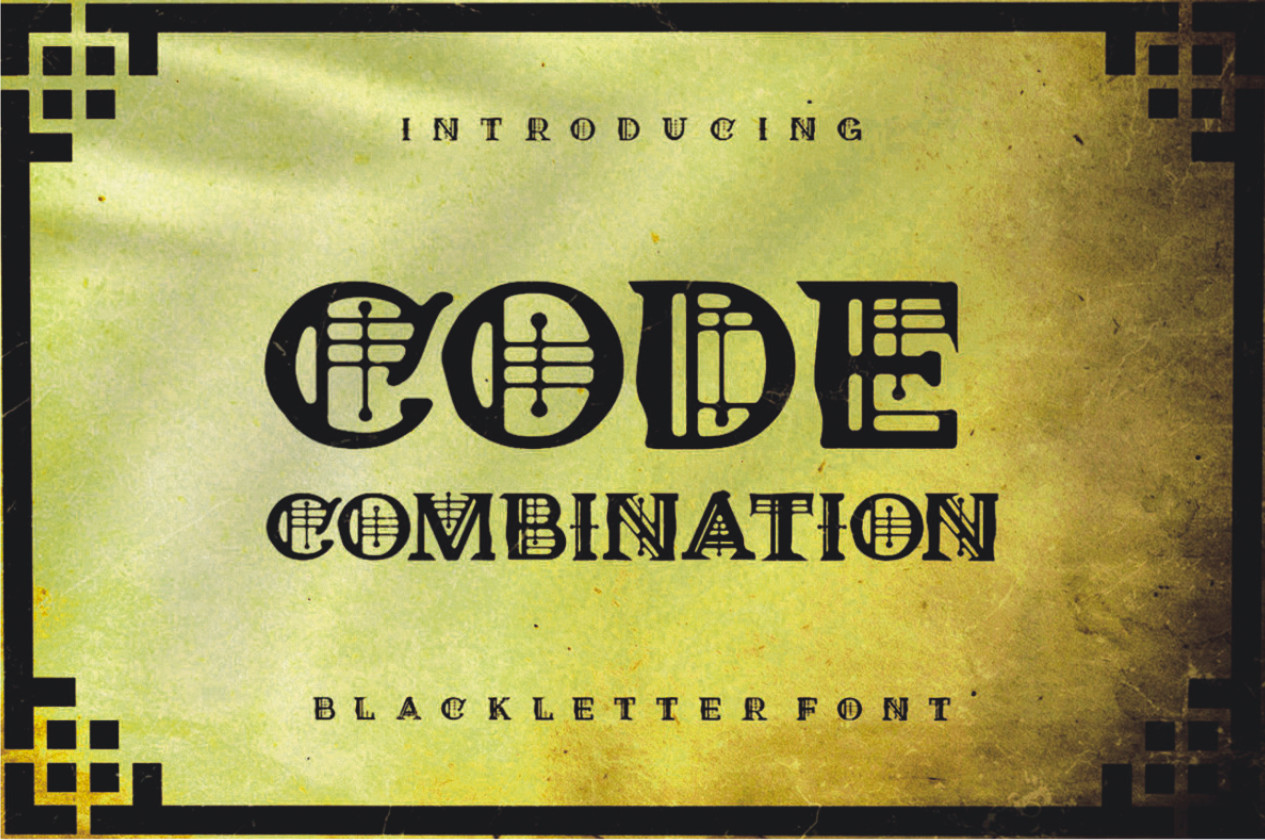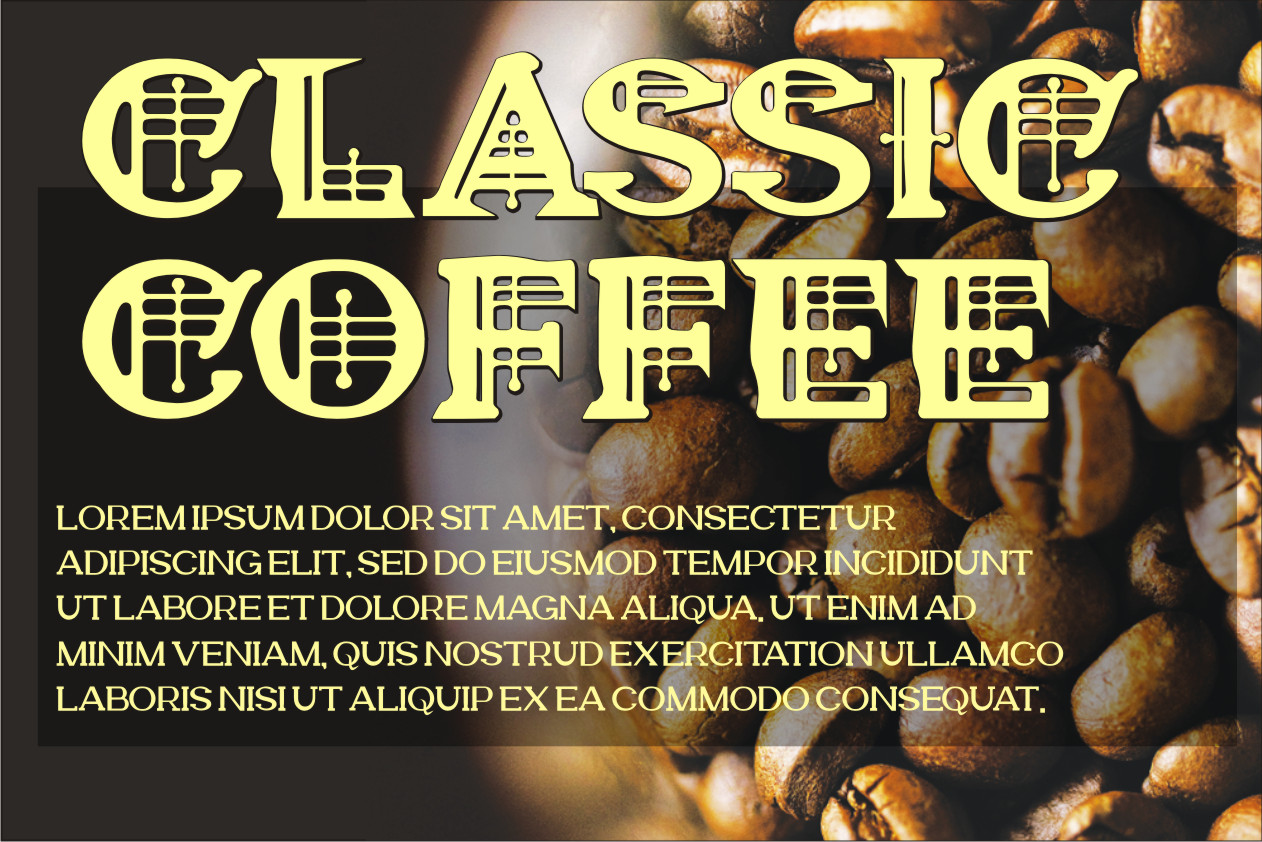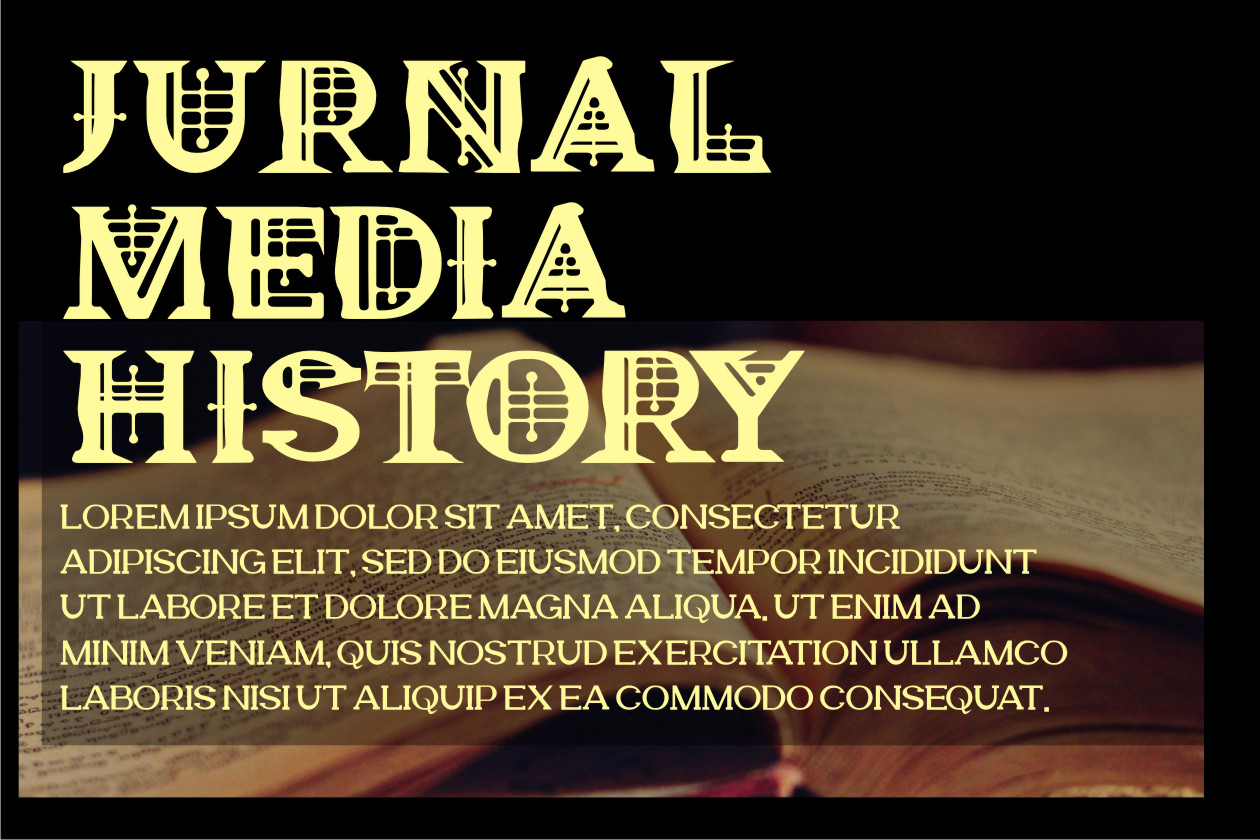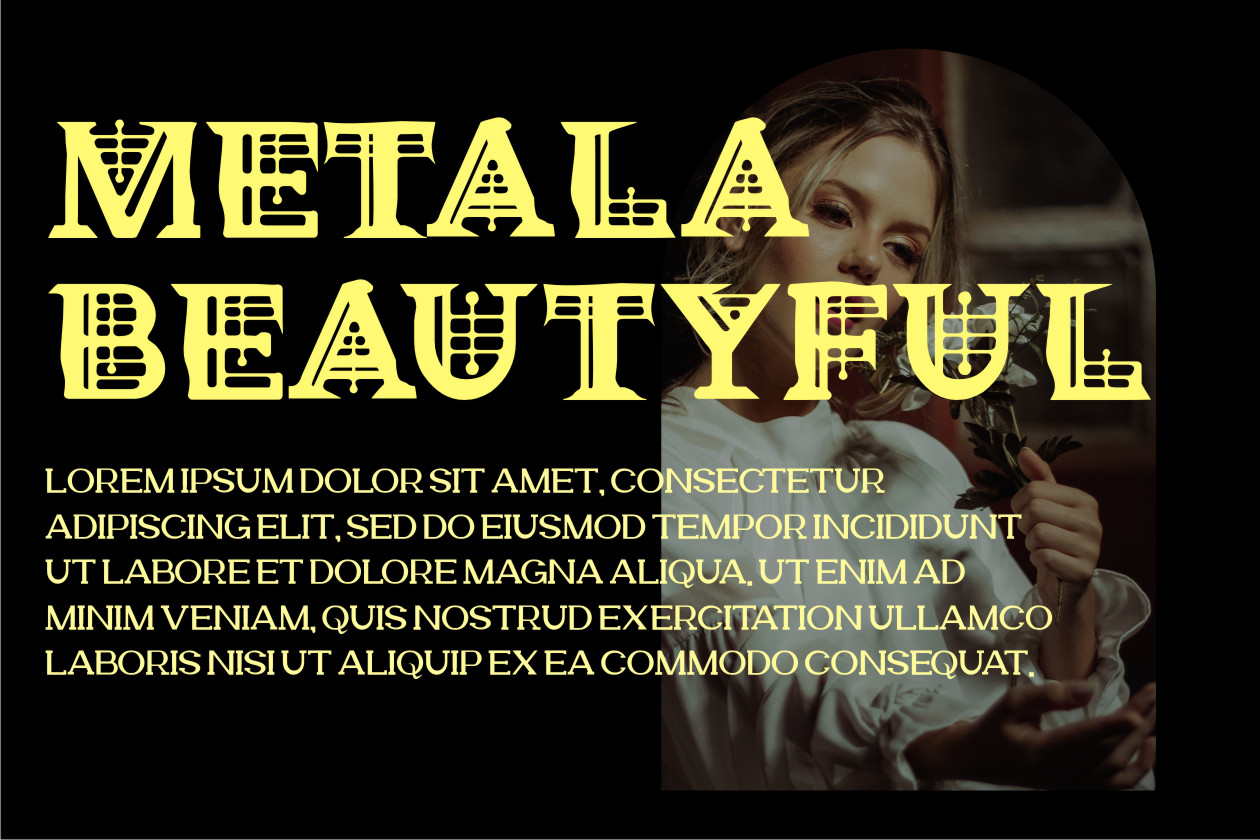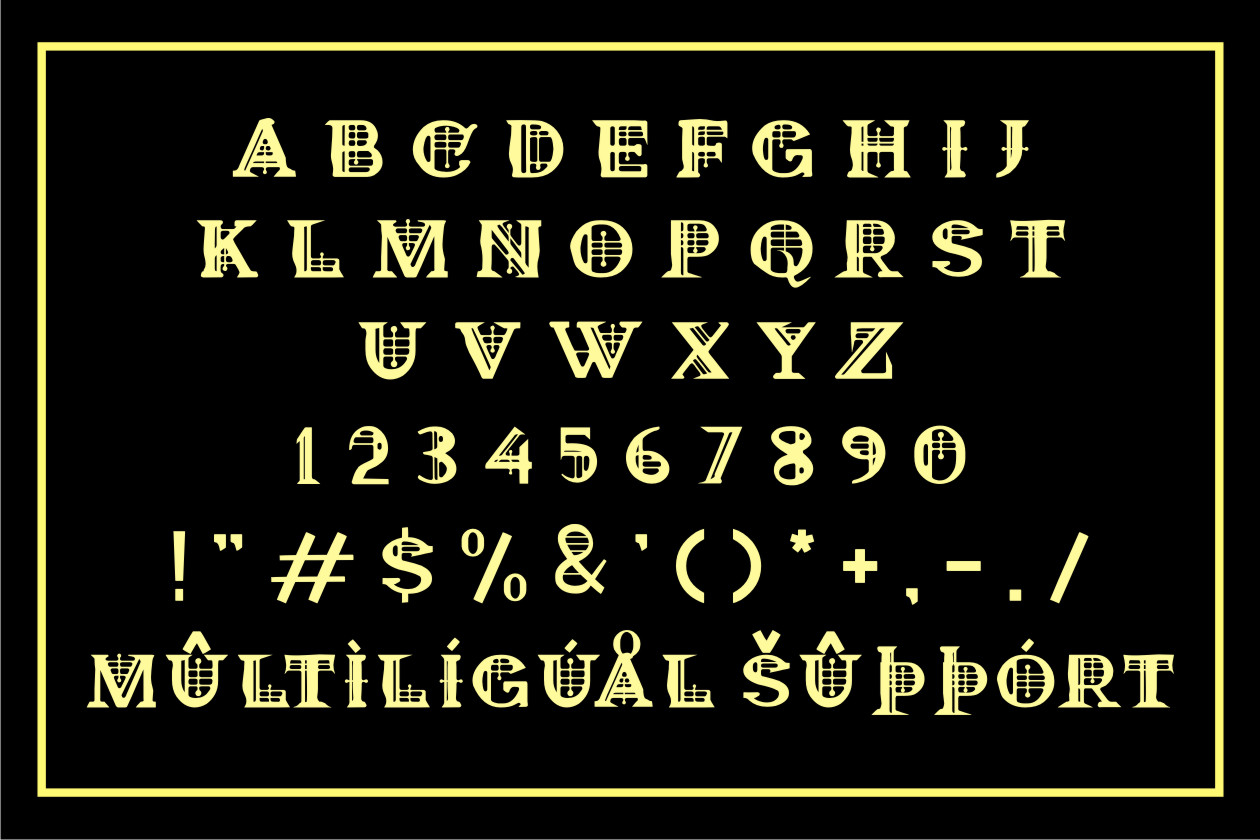
Code Combination Font
Code Combination Blackletter Font
This is a cool and uniquely designed blackletter font. No matter the topic, this font will be an incredible asset to your fonts’ library, as it has the potential to elevate any creation.